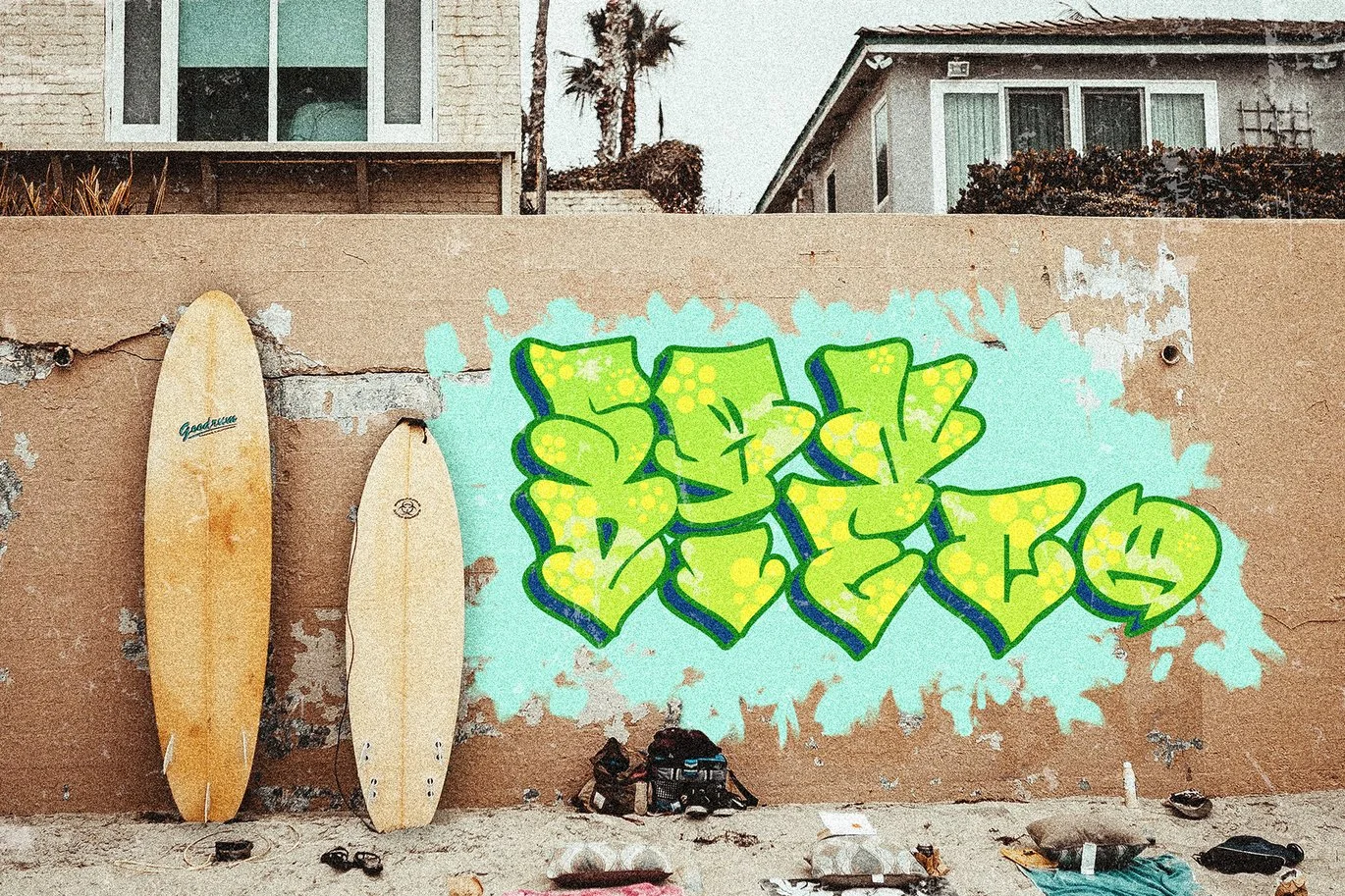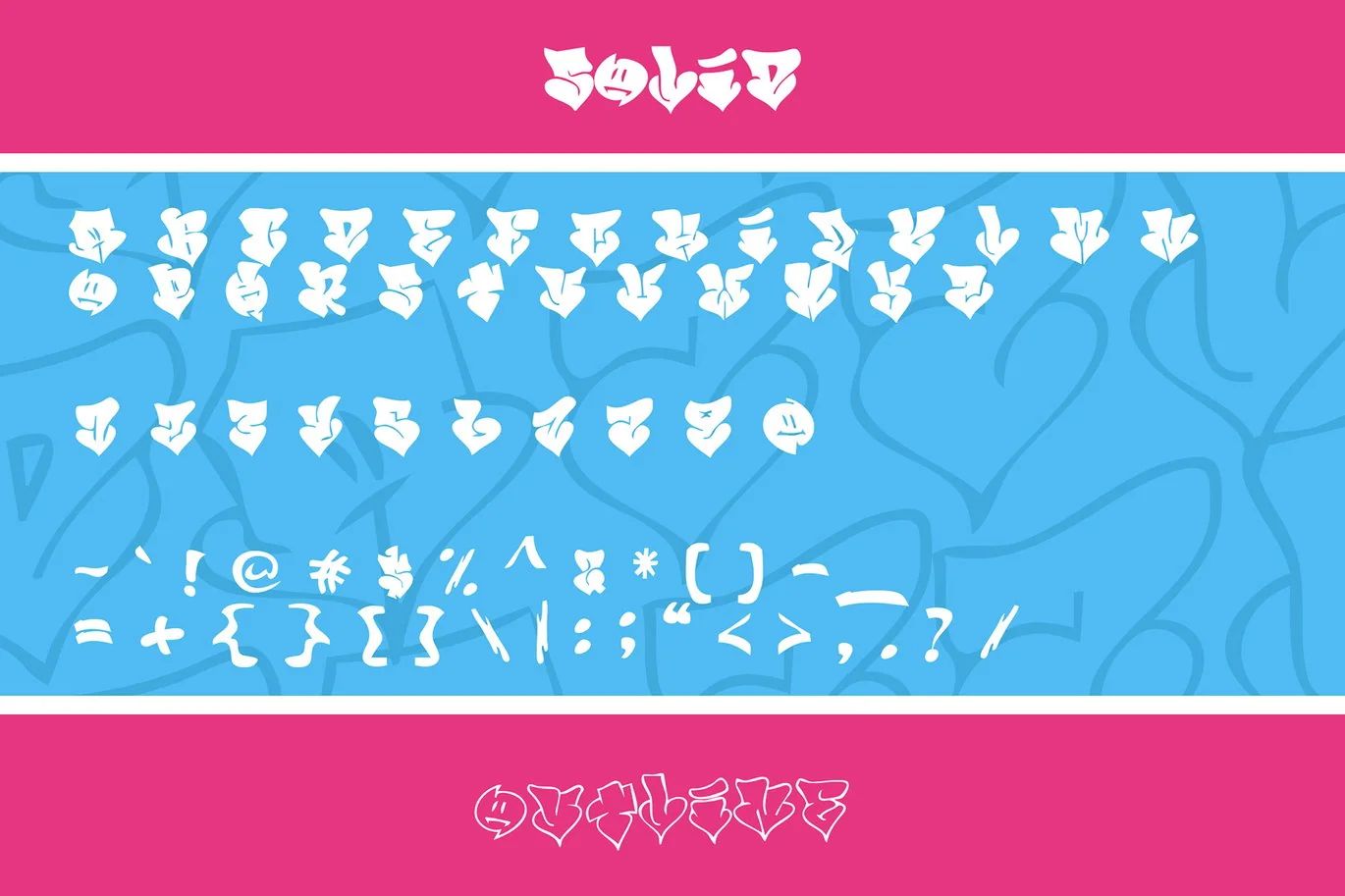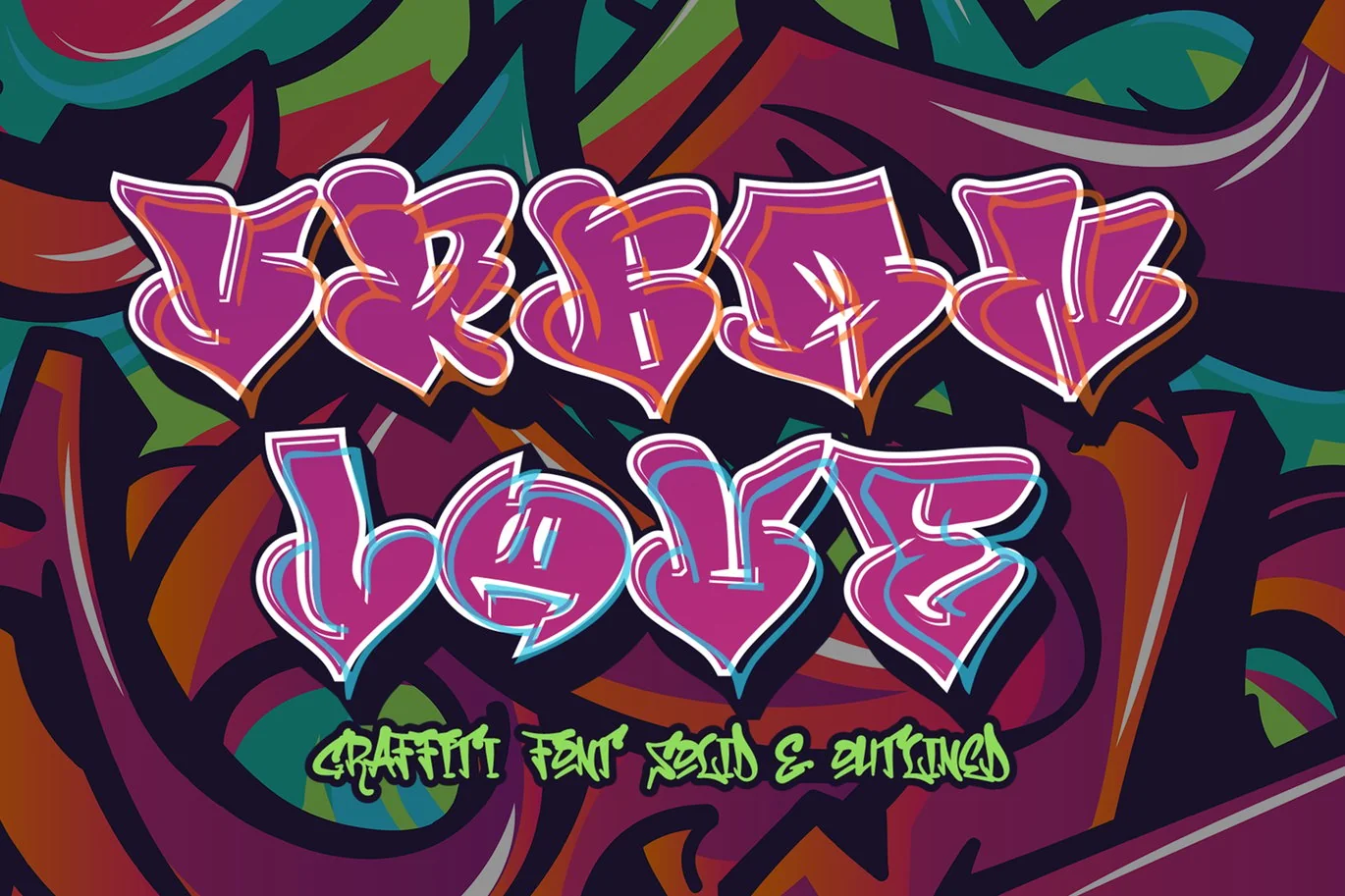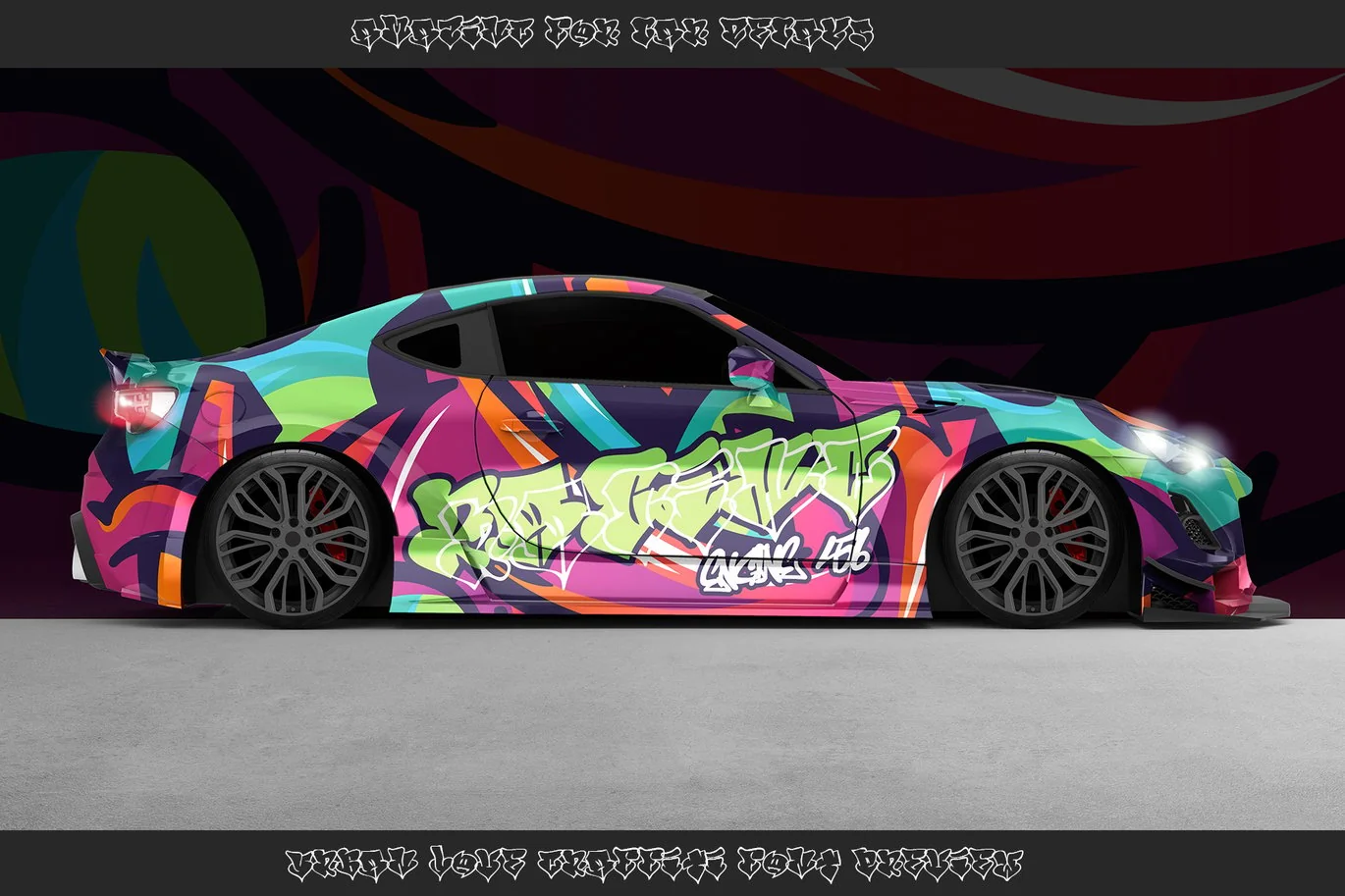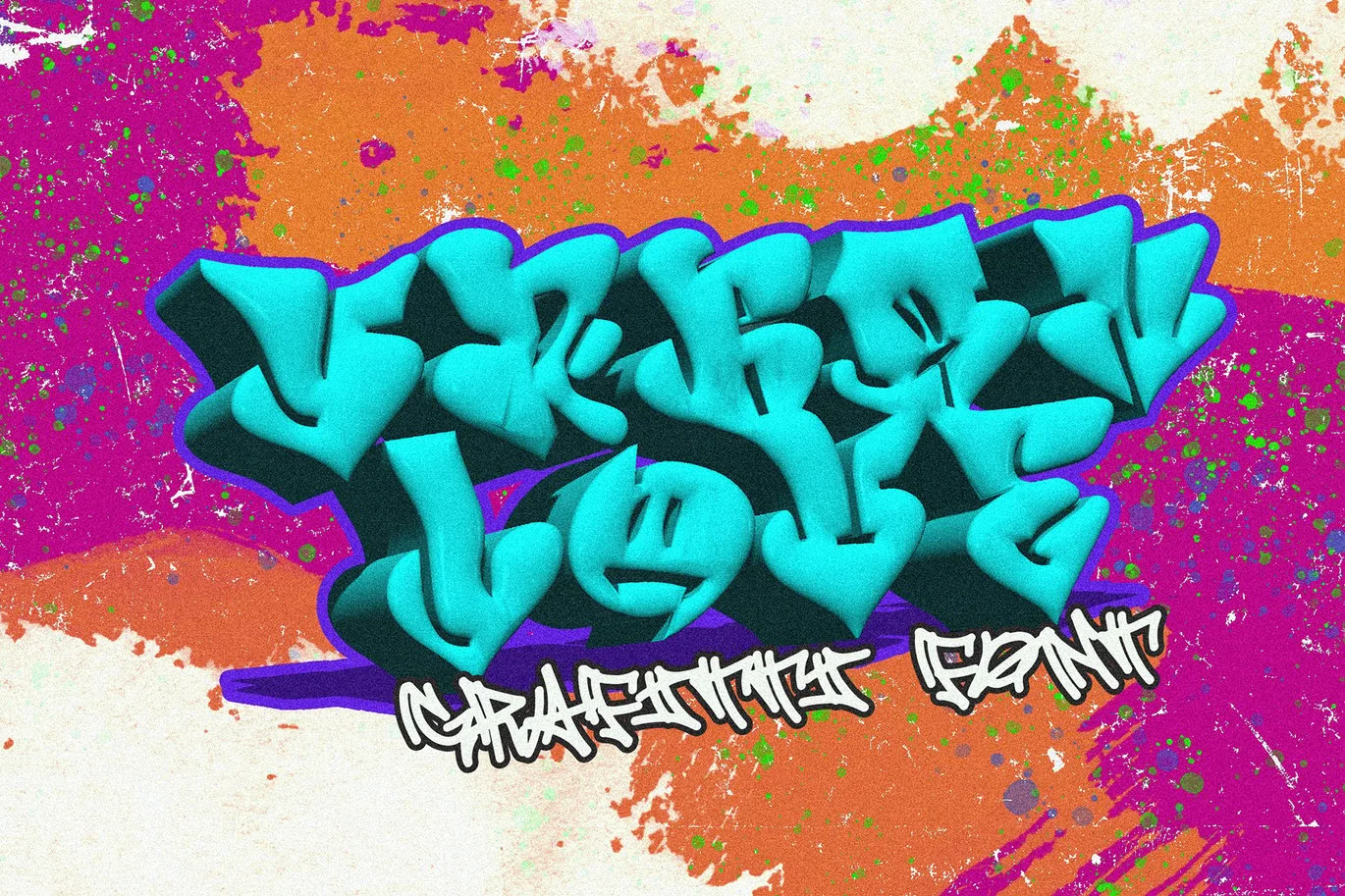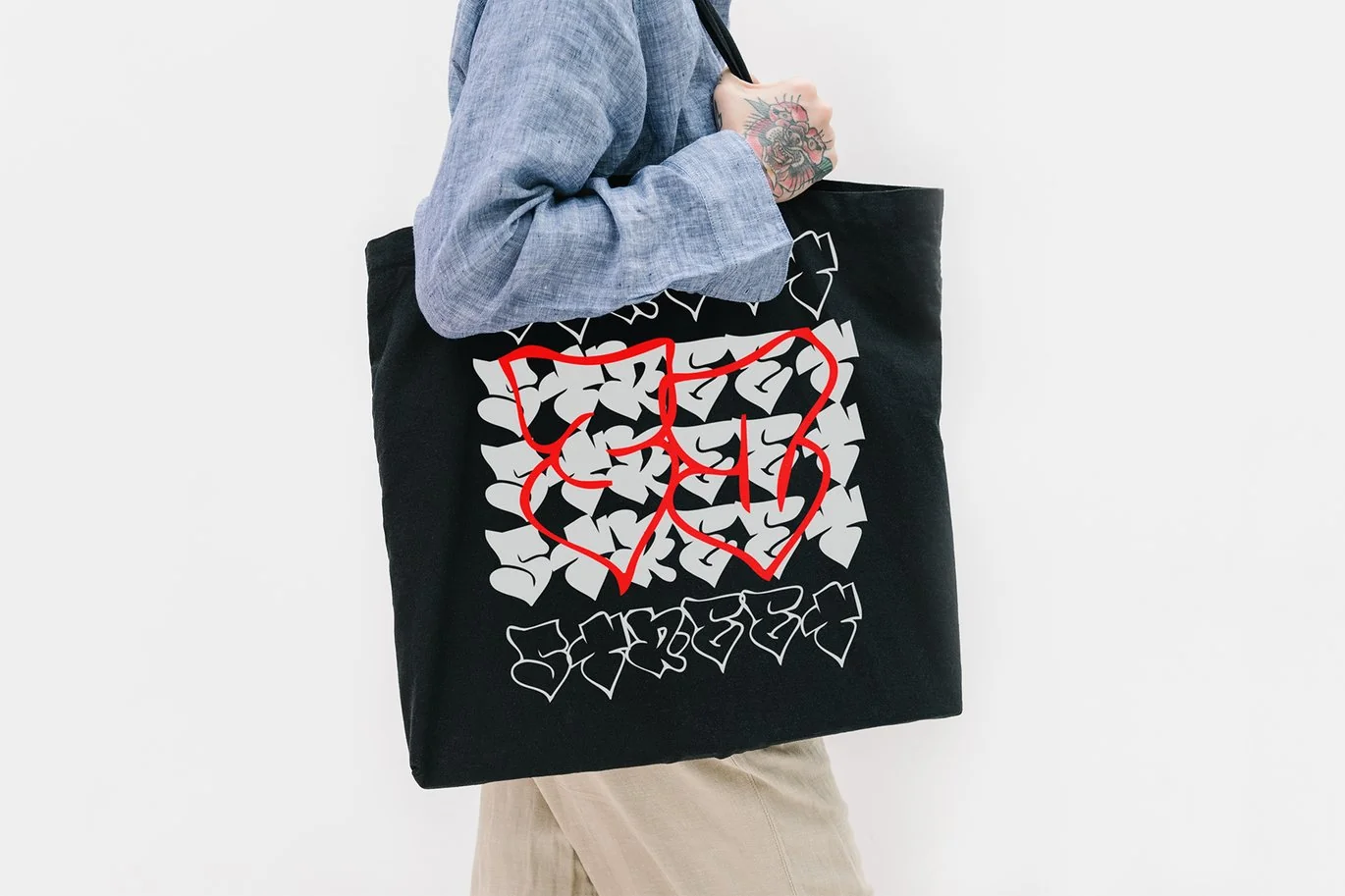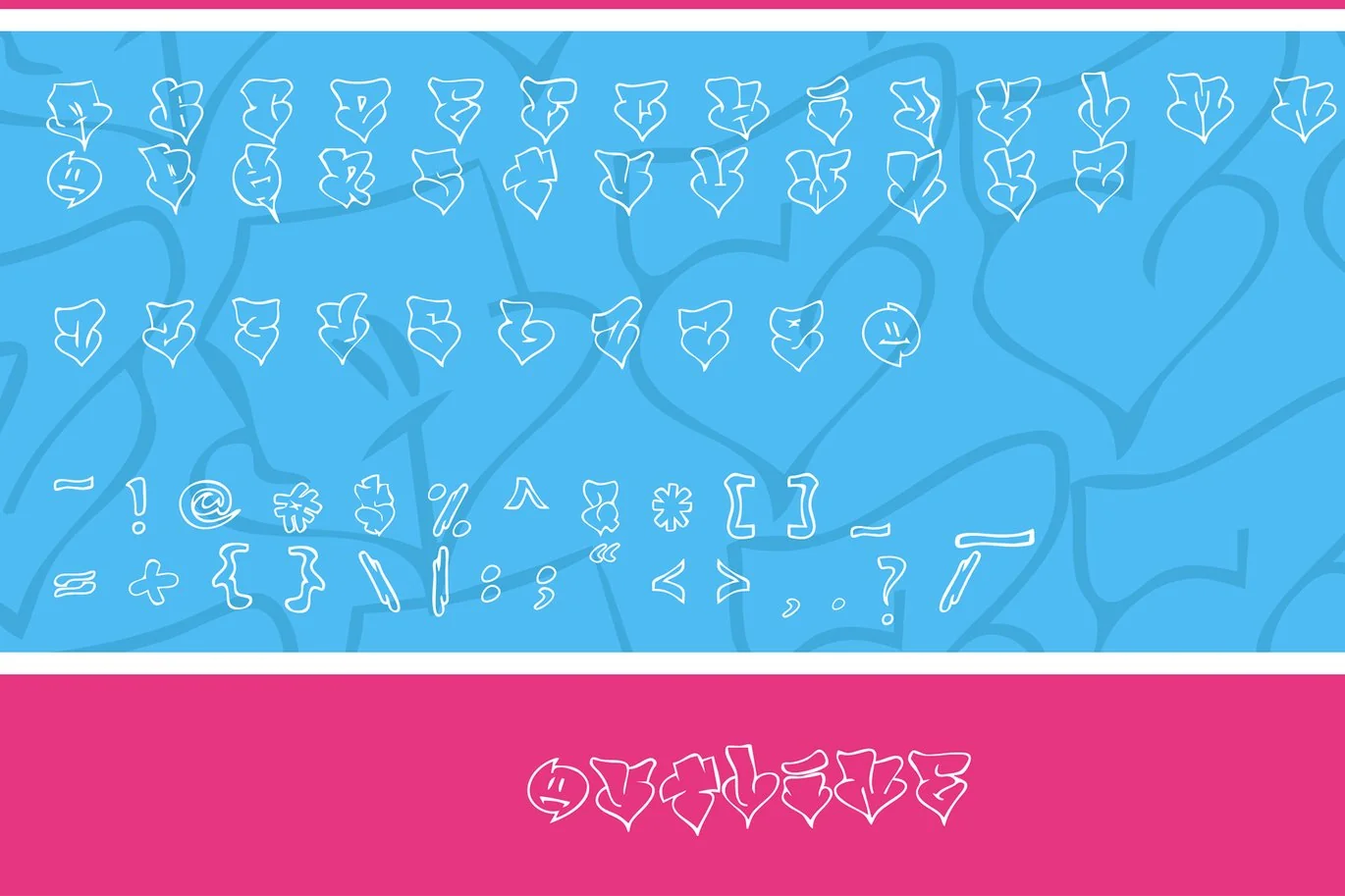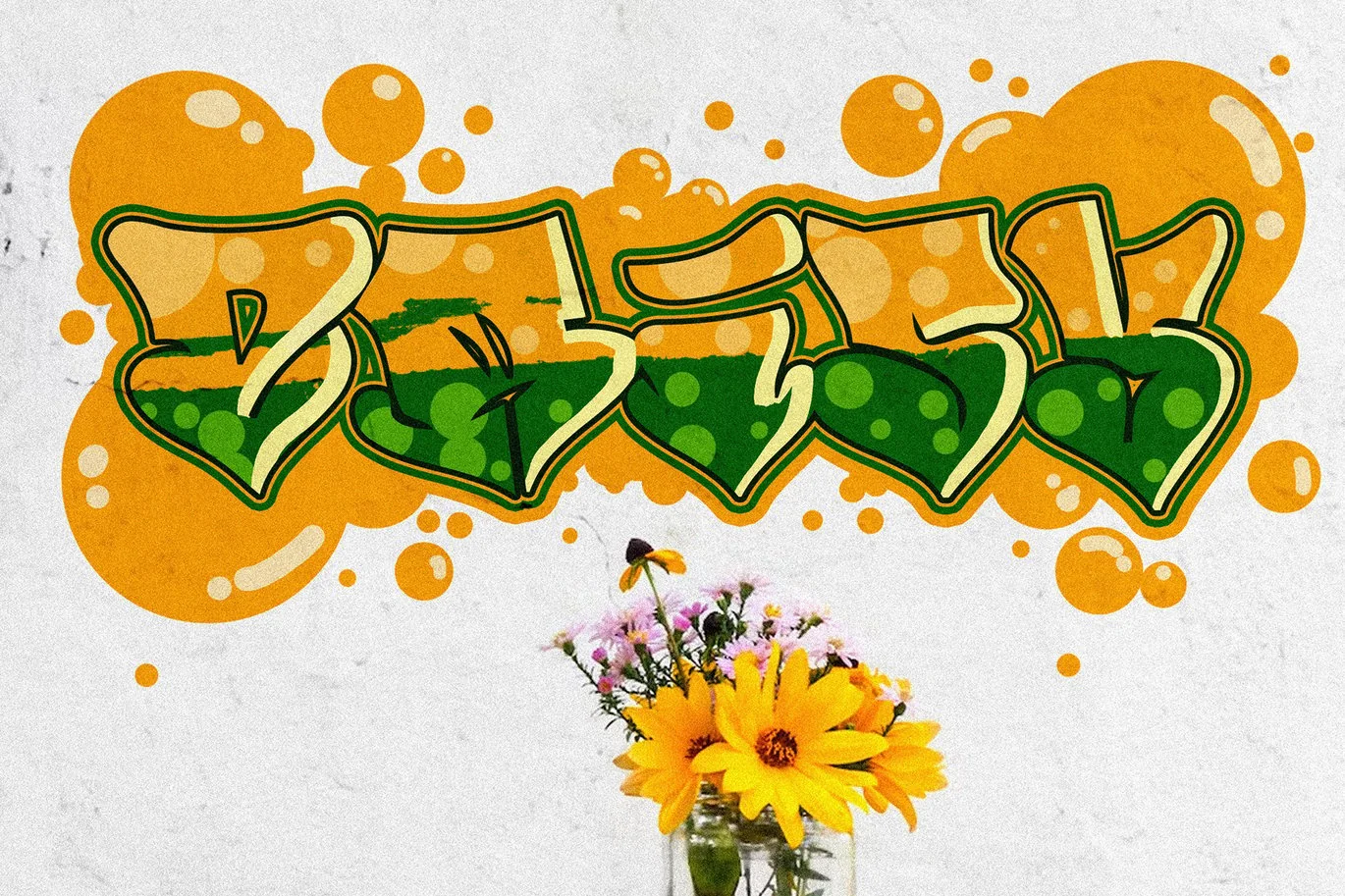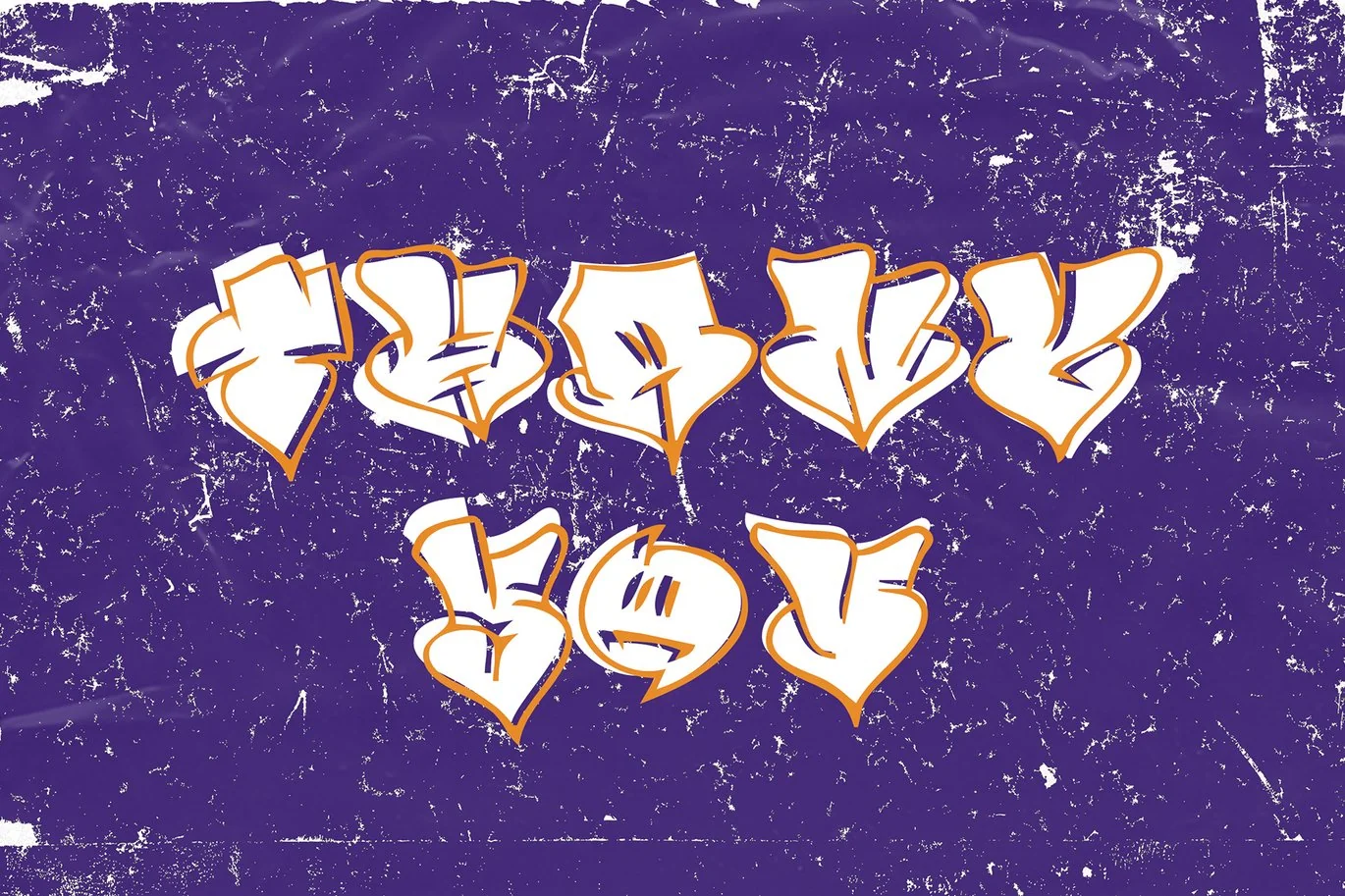
Urban Love – Solid and Outline Graffiti Font
Urban Love is a bold graffiti font with subtle “love” formations within each character. It’s available in two styles: solid and outline. This font brings an urban and artistic touch to your typography, making it perfect for various design projects, especially those related to love or urban themes. Whether you’re designing posters, logos, or artwork with a bold statement, Urban Love offers a unique and eye-catching style that stands out.
- Basic Latin A-Z
- Symbols